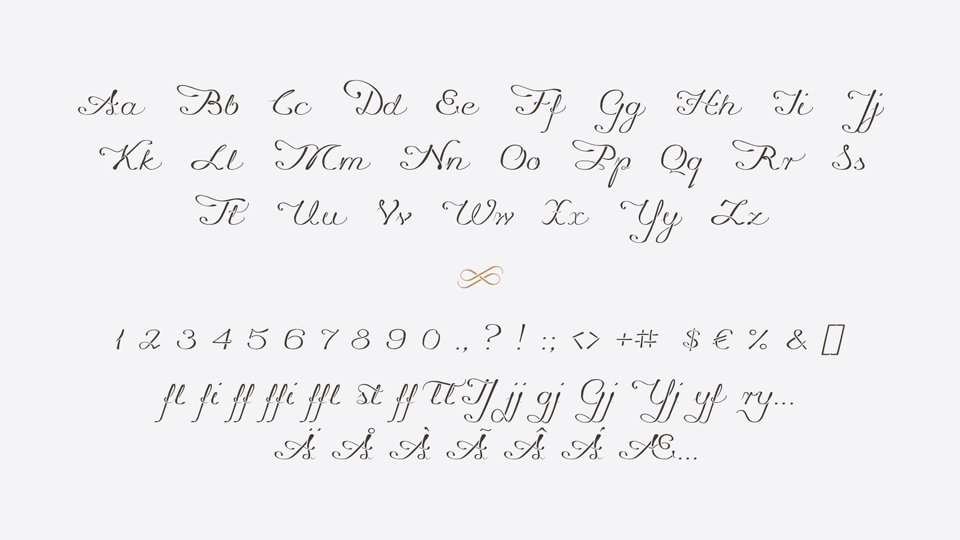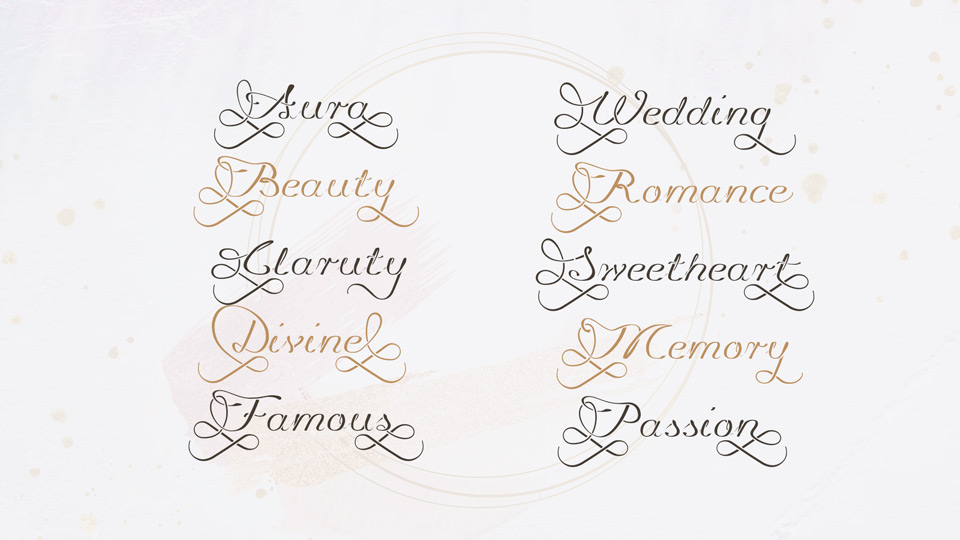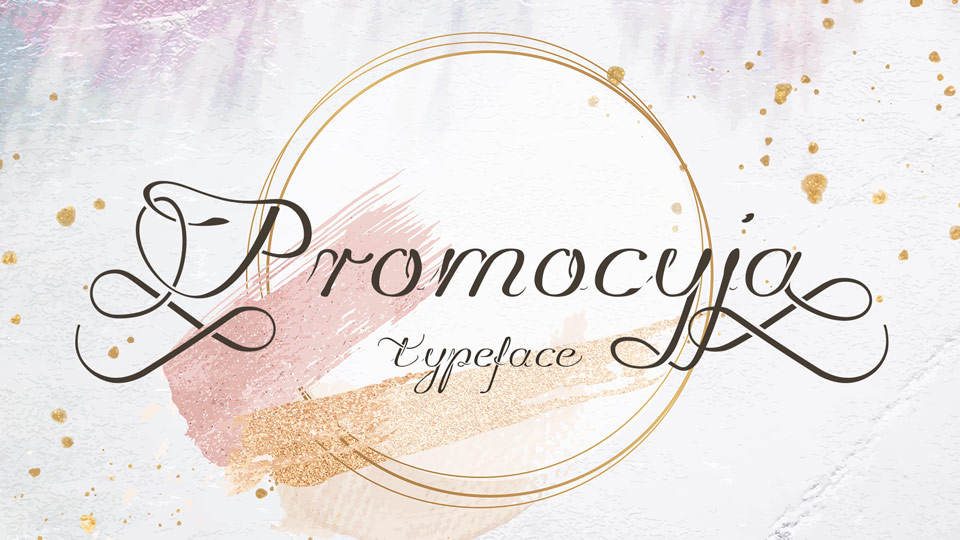
Pro­mo­cyja Font
Pro­mo­cyja is a stunning script font. It has many alter­na­te glyphs, which turn on depends of neigh­bor­ing glyphs (con­tex­tual alter­nates), styl­is­tic sets and lig­a­tures.
Pro­mo­cyja is perfect for wedding decoration, feminine design, logo, branding, apparel and more.
Designed by: Grzegorz Luk